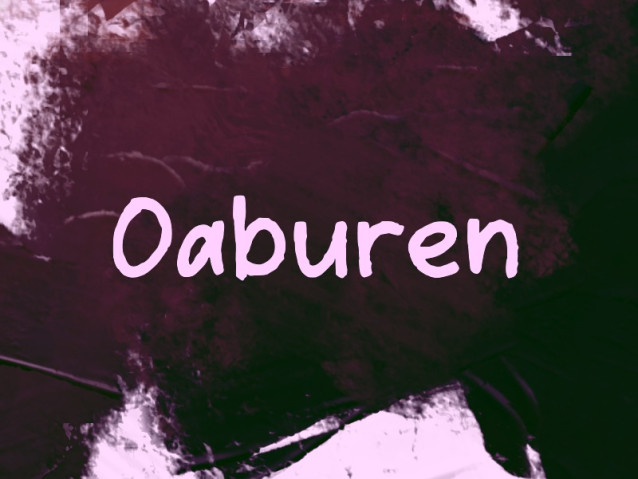
Oaburen Font
Oaburen Font is a simple and modern display font suitable for quotes, logos, headings, titles, and many more. Use it on any of your creative projects, and your designs will become outstanding!